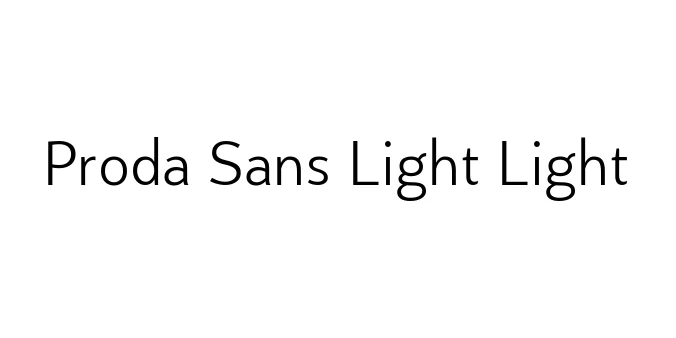
Proda Sans Light Light
Designed by Rajesh Rajput
Proda Sans Light is a contemporary humanist sans-serif typeface that bridges the gap between geometric structure and organic warmth. Inspired by the classic proportions of early 20th-century typographic designs, it offers a clean and sophisticated aesthetic that is highly versatile across various digital and print mediums. The Light weight is particularly noted for its airy and elegant presence, making it a favorite for designers looking to convey a sense of modern luxury and clarity without sacrificing readability.
Crafted by Rajesh Rajput, this typeface family was developed with meticulous attention to detail, ensuring balanced kerning and consistent stroke weights. Its humanist influences provide a more natural reading experience compared to purely geometric fonts, making it suitable for both high-impact display purposes and shorter blocks of secondary text. Proda Sans Light excels in environments where a minimalist yet characterful typographic voice is required to elevate the visual hierarchy.
Perfect for high-end magazines and long-form articles that require a sophisticated, airy look.
Ideal for luxury brand logos and corporate identities seeking a modern, approachable feel.
Excellent for clean website headers, minimalist navigation menus, and UI elements.
Well-suited for business cards, brochures, and high-quality stationery that prioritize legibility and style.